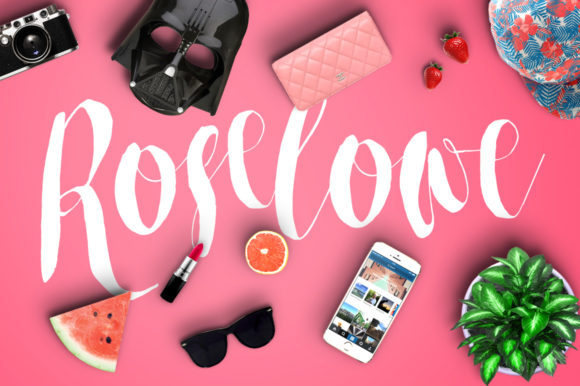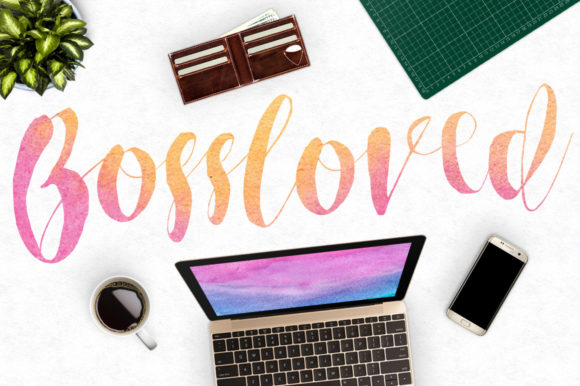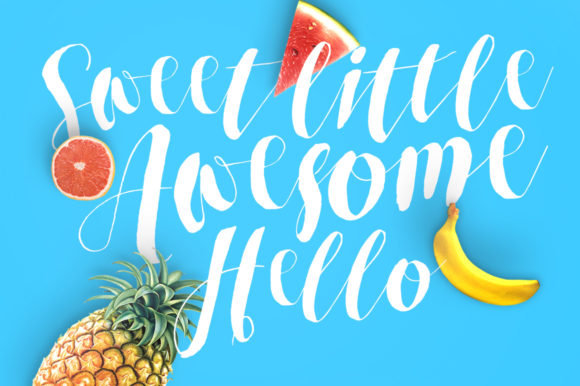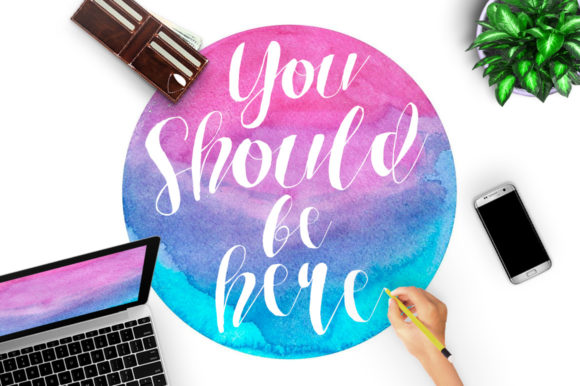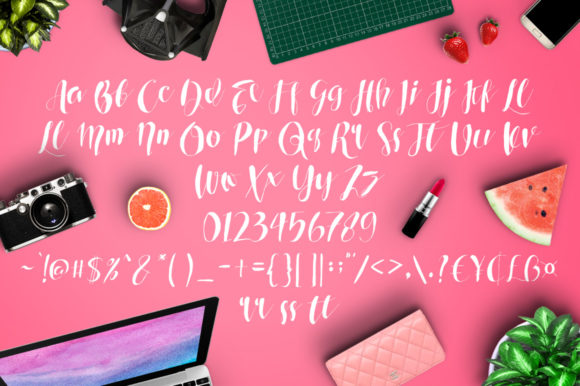
About Roselowe Font
Introducing Roselowe, the epitome of elegance in a beautiful handwritten font. This font perfectly blends the classic charm of calligraphy with a modern and fresh twist. Its versatility makes it a wonderful choice for a myriad of creative projects, from formal letterheads and eye-catching titles to personalized stationery.
With Roselowe, you can effortlessly infuse a touch of sophistication into any design. Its timeless appeal will elevate your creations, leaving a lasting impression on anyone who lays eyes on them. Whether you’re designing for business or personal purposes, Roselowe’s classy calligraphic influences will add a touch of refinement to your work.
The contemporary and fresh feel of Roselowe sets it apart, making it equally suited for modern design trends. It effortlessly adapts to various styles and themes, making it an excellent choice for any crafty idea you have in mind.
Let Roselowe adorn your letterheads with its graceful curves and elegant strokes, making each correspondence a work of art. Its subtle yet captivating charm will impress recipients and set the tone for any formal communication.
For eye-catching titles and headings, Roselowe steals the show with its sophisticated presence. It commands attention and creates a sense of luxury, perfect for making your designs stand out in a crowd.
But Roselowe is not limited to business use alone. Add a touch of refinement to your personalized stationery, invitations, and other special event materials. Roselowe’s timeless beauty will set the tone for memorable occasions, leaving recipients in awe of the thought and effort put into each piece.
Roselowe’s versatility extends to various design applications, making it suitable for both print and digital projects. From wedding invitations and event programs to digital graphics and websites, this font will effortlessly enhance the aesthetics of any composition.
In conclusion, Roselowe is the embodiment of elegance and style in a handwritten font. Its classy calligraphic influences, combined with a contemporary edge, make it a versatile choice for a wide range of crafty ideas. Whether for formal occasions or personal creations, Roselowe will elevate your designs and leave a lasting impression on everyone who beholds its beauty.